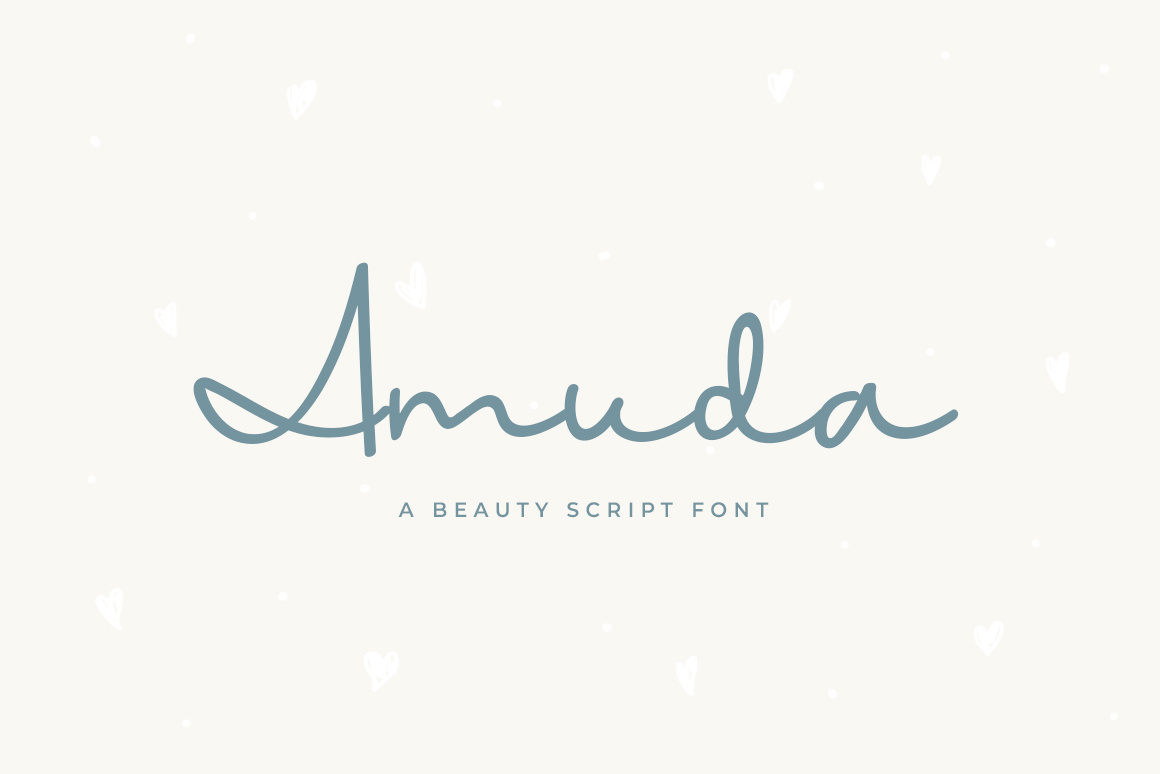
Amuda Script Font
Amuda script font is a premium font project which is a beautiful modern monoline script font. With a simple but elegant and aesthetic appearance. The name Amuda is a picture of a charming and passionate woman, suitable to be used as a name for this font.